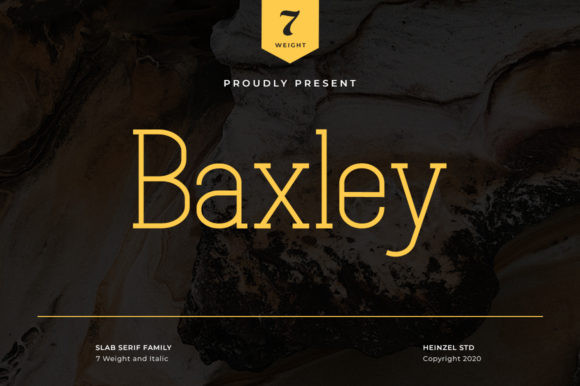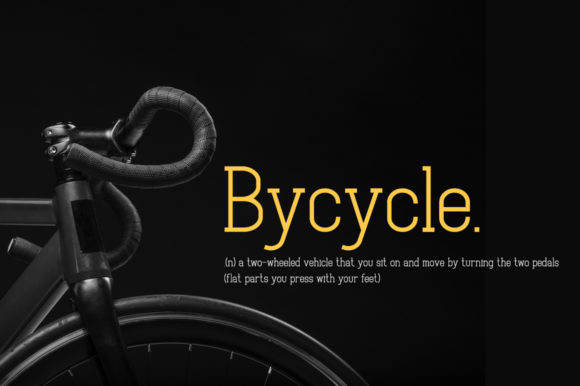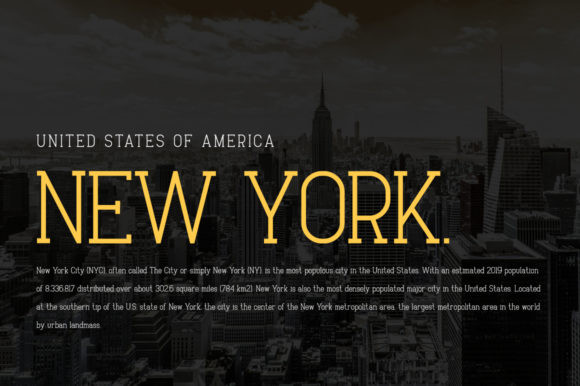
Baxley Font
Baxley is a modern and beautiful slab serif font. It features a classic feel that will look particularly adept when used in logos, branding, packaging design, and much more. This masterfully designed font is a true must-have.